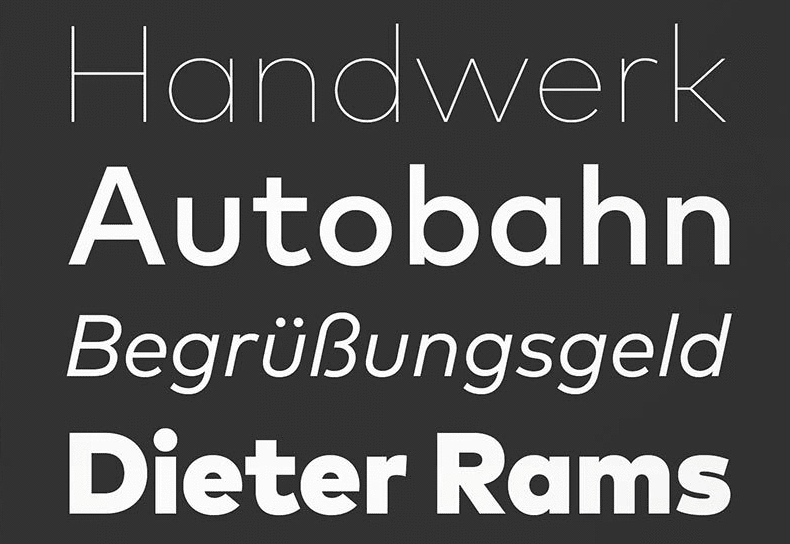
Recommendable typefaces as alternatives to Futura. The typefaces presented here can be seen as belonging to the same classification category as Futua (“geometric sans serif”), but each have their own look, aren’t overused (yet) and are chosen because of their overall quality.Â
Today’s Best Futura Alternatives (2021)
Jost*
Jost* aims to keep the attitude of Futura rather than the exact design. Futura was designed to be functional in its day, and in that spirit, Jost* aims to be as functional as possible in the digital era. For that reason it deviates from the exact designs of Paul Renner, favoring, for example, a larger x-height or more balanced capital forms. It also includes some features which would not have been possible in the era of Futura.-